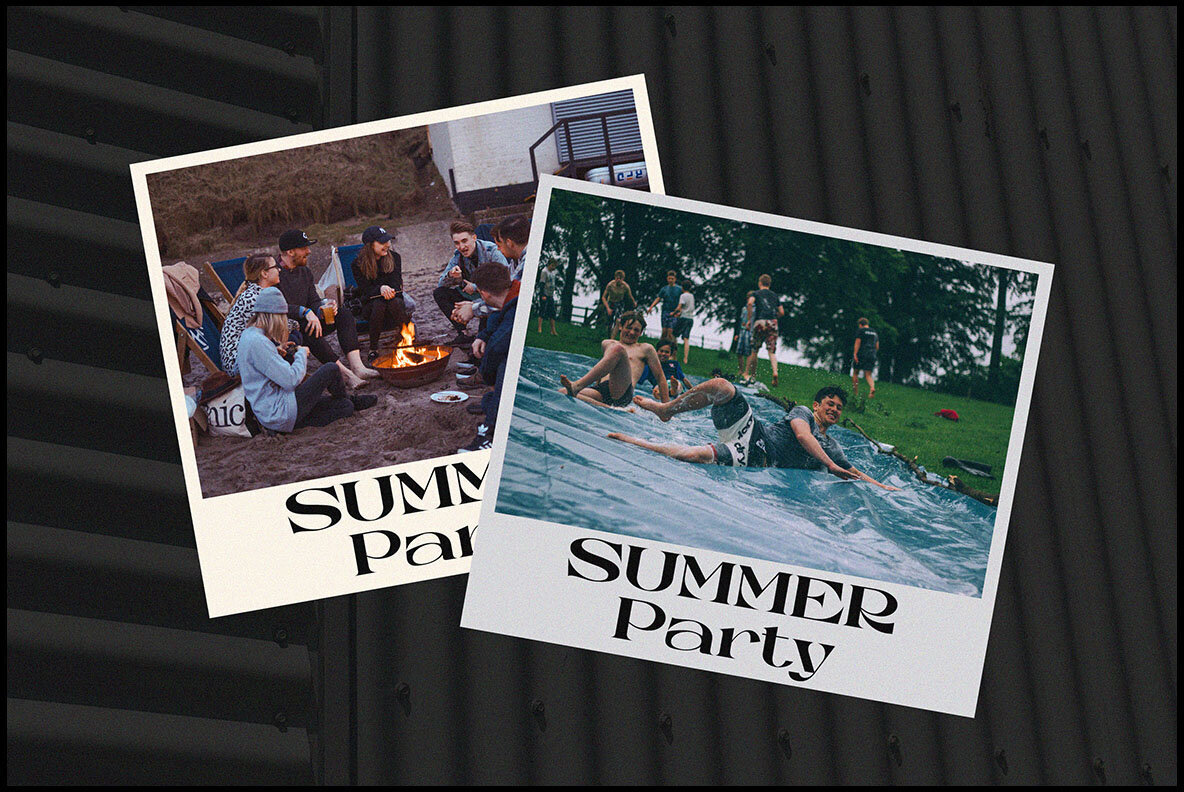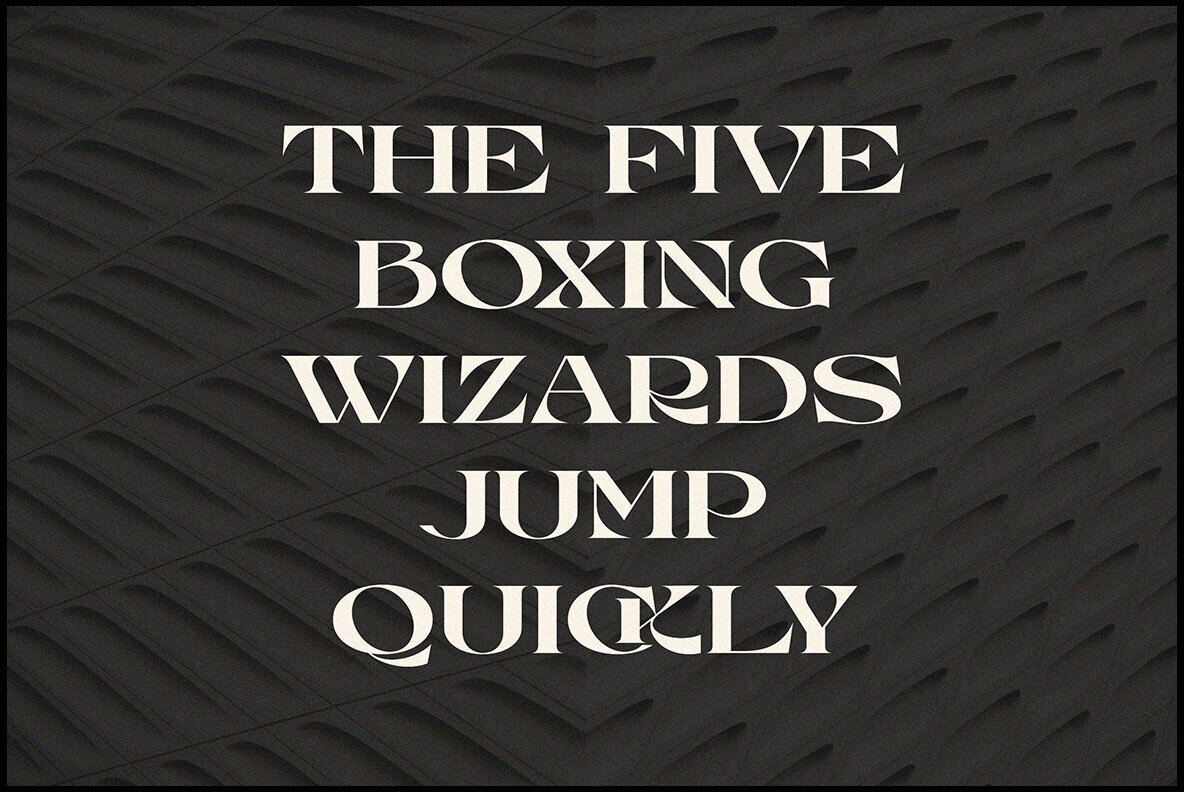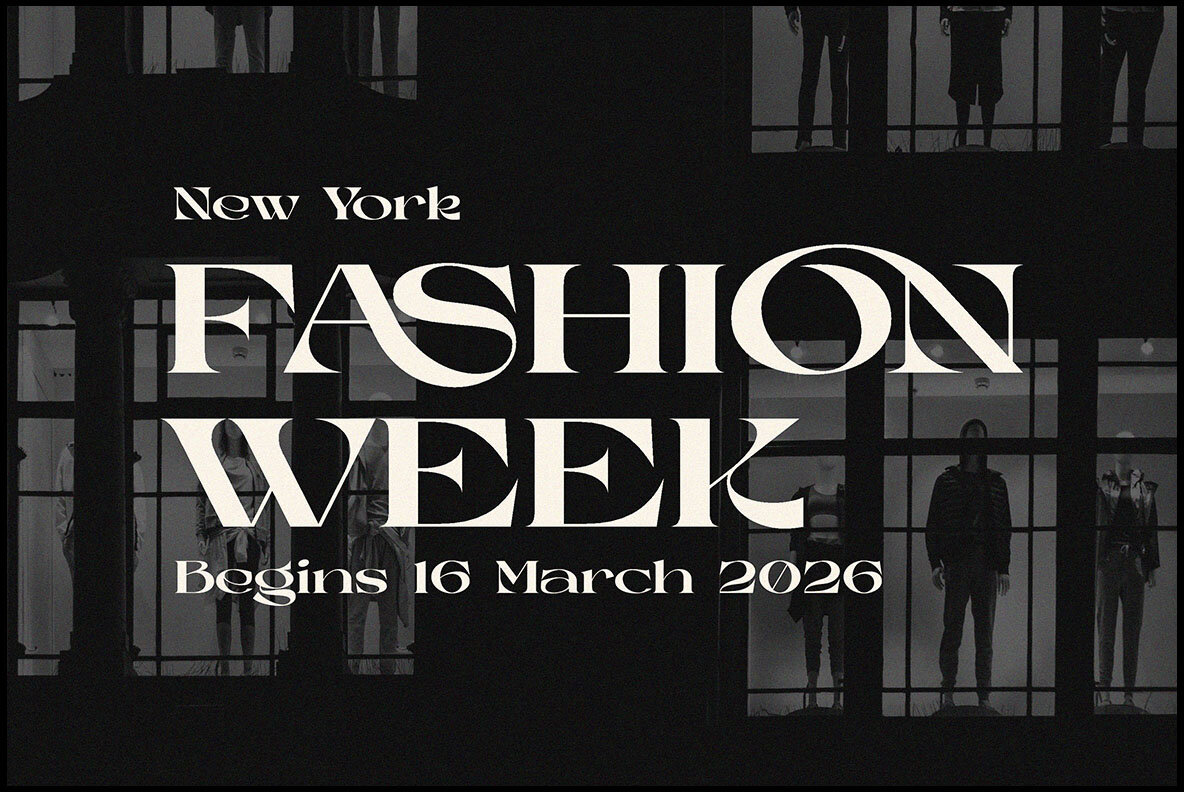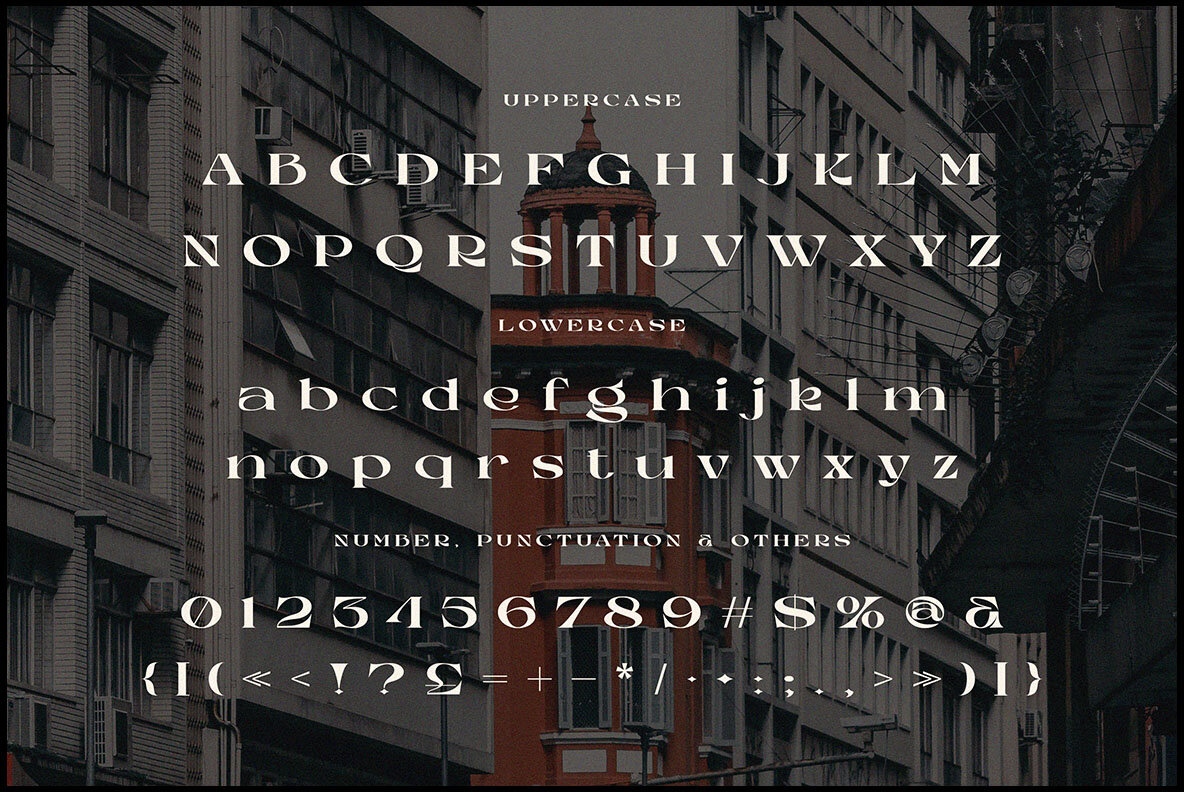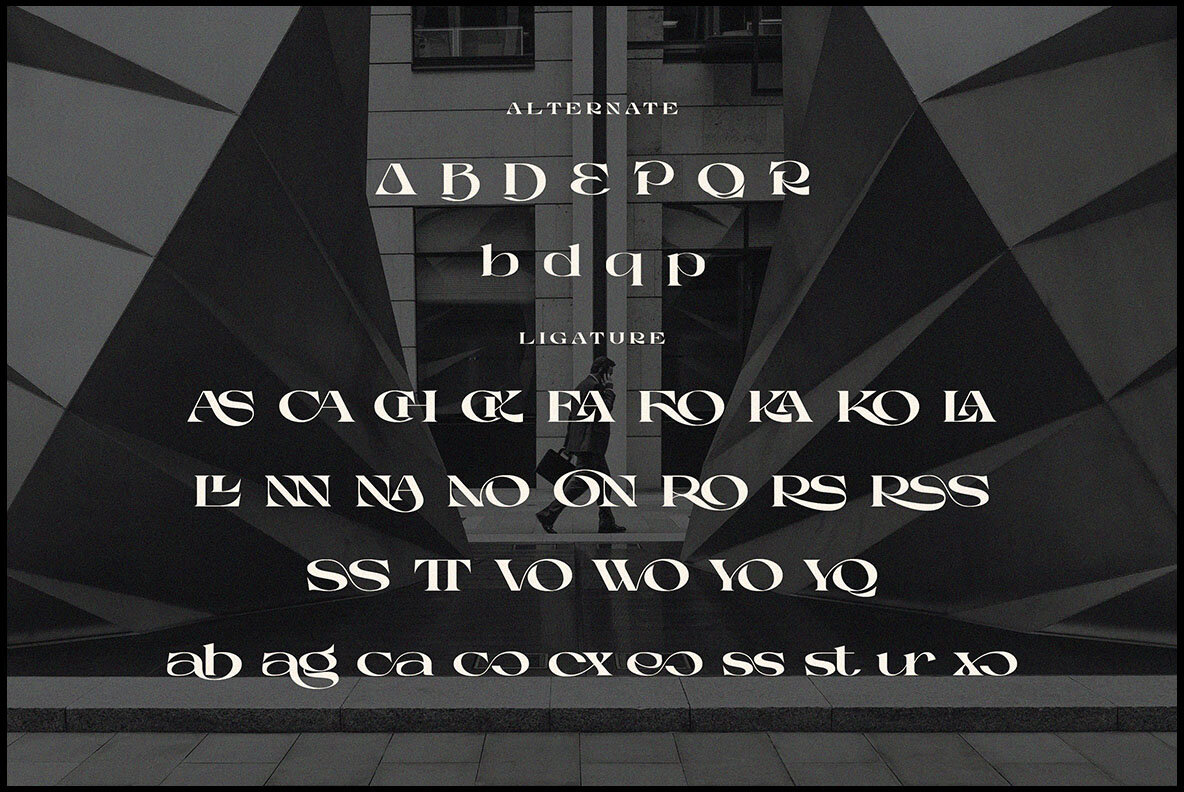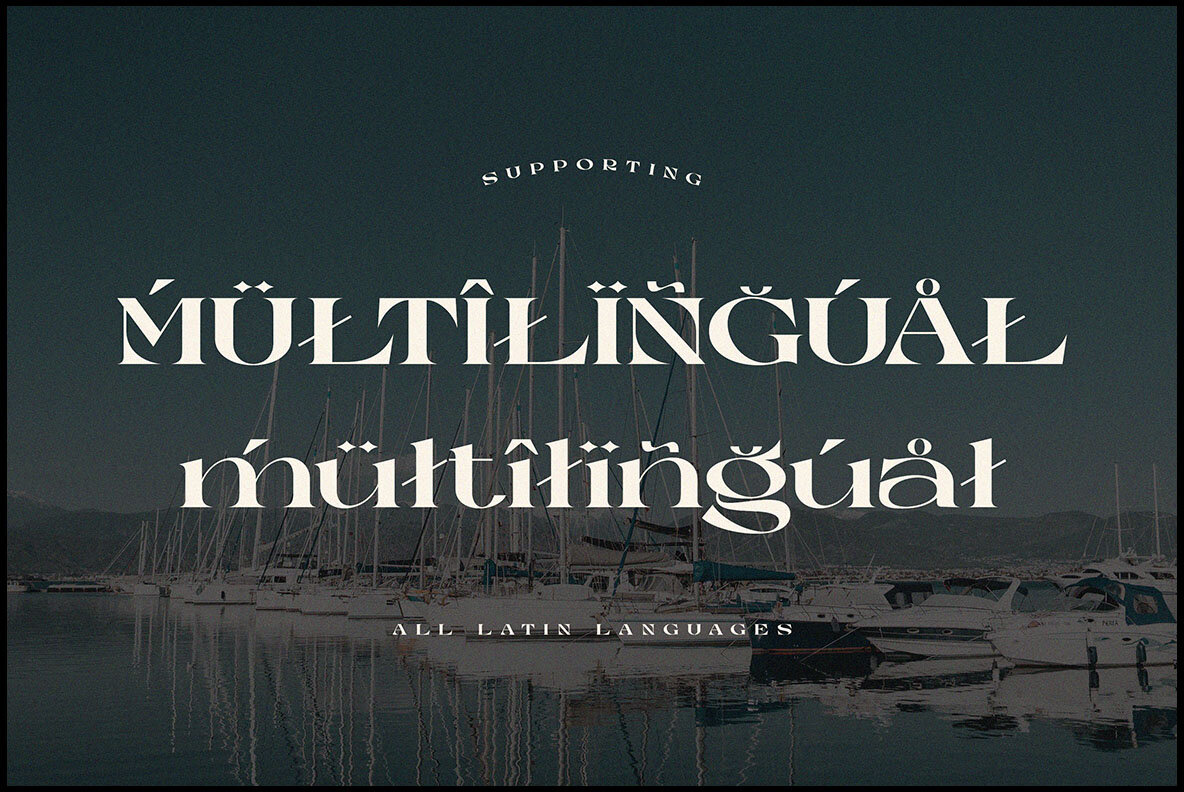
Korsson Font
KORSSON
Korsson by Peter Olexa is a trendy, classy, and bold serif font designed for modern projects. Its elegant and fashionable style makes it ideal for any branding endeavor. With numerous alternates and ligatures, Korsson allows you to craft unique and original logo designs and website headers.Korsson: A Versatile Serif for Bold Branding